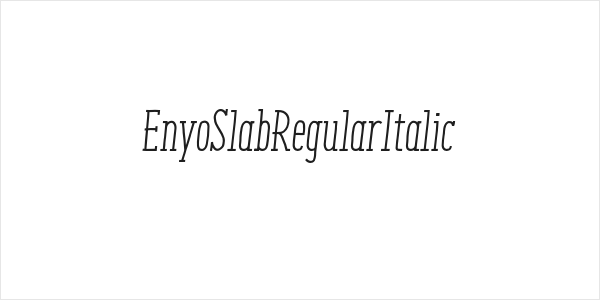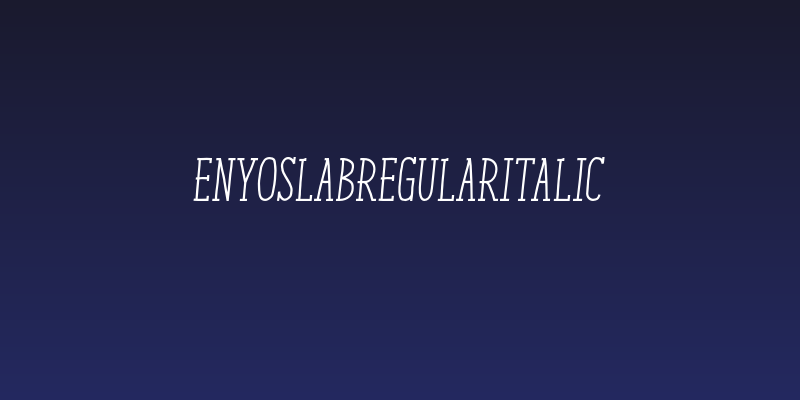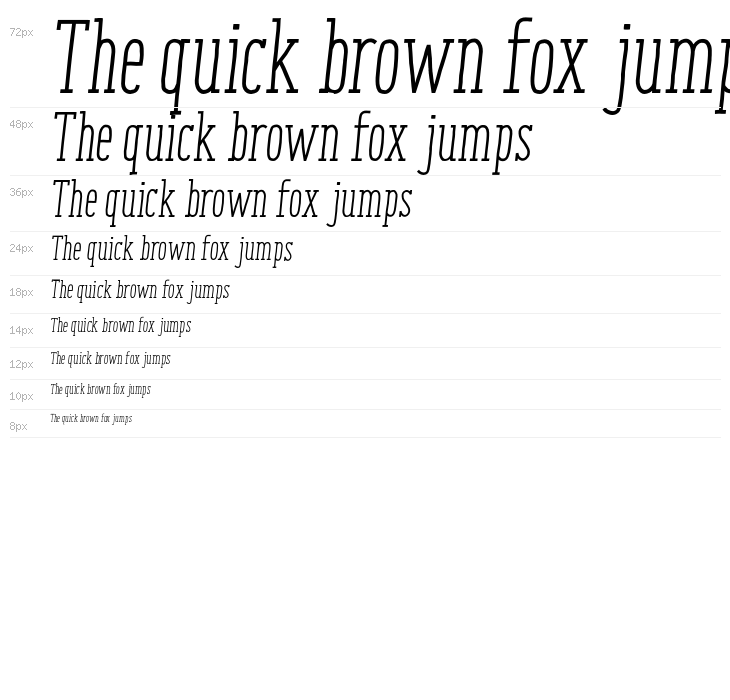
EnyoSlabRegularItalic Font
EnyoSlabRegularItalic Description
This font features a distinctive slab serif style with a noticeable italic slant, giving it a dynamic yet structured appearance. The characters are well-defined with consistent stroke widths, providing a balanced and readable text. The uppercase letters are tall and commanding, while the lowercase letters maintain a cohesive flow, enhancing readability. Numerals are clear and uniform, making them suitable for various applications. The special characters are crafted with precision, ensuring they integrate seamlessly with the rest of the typeface. Overall, this font combines traditional serif elements with a modern twist, making it versatile for both formal and creative uses.
| Proposed Projects | Ideal for editorial design, branding projects, and advertising where a classic yet contemporary look is desired. |